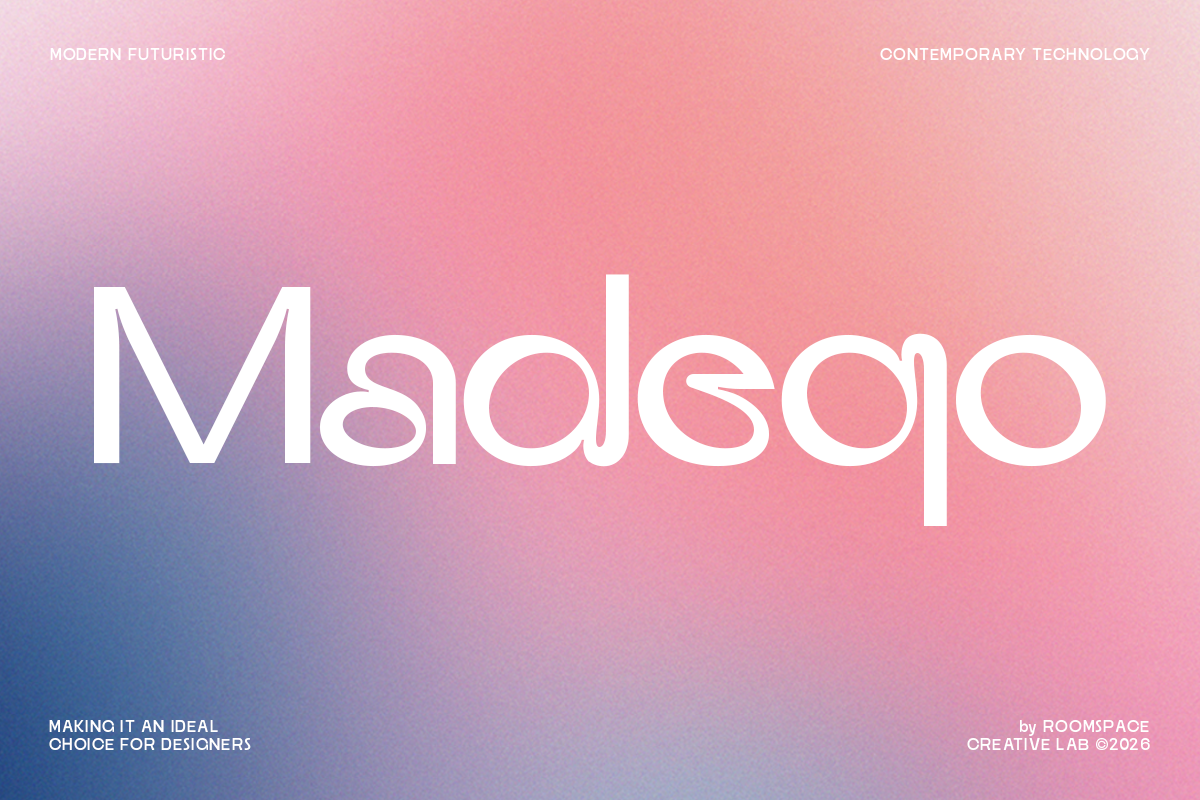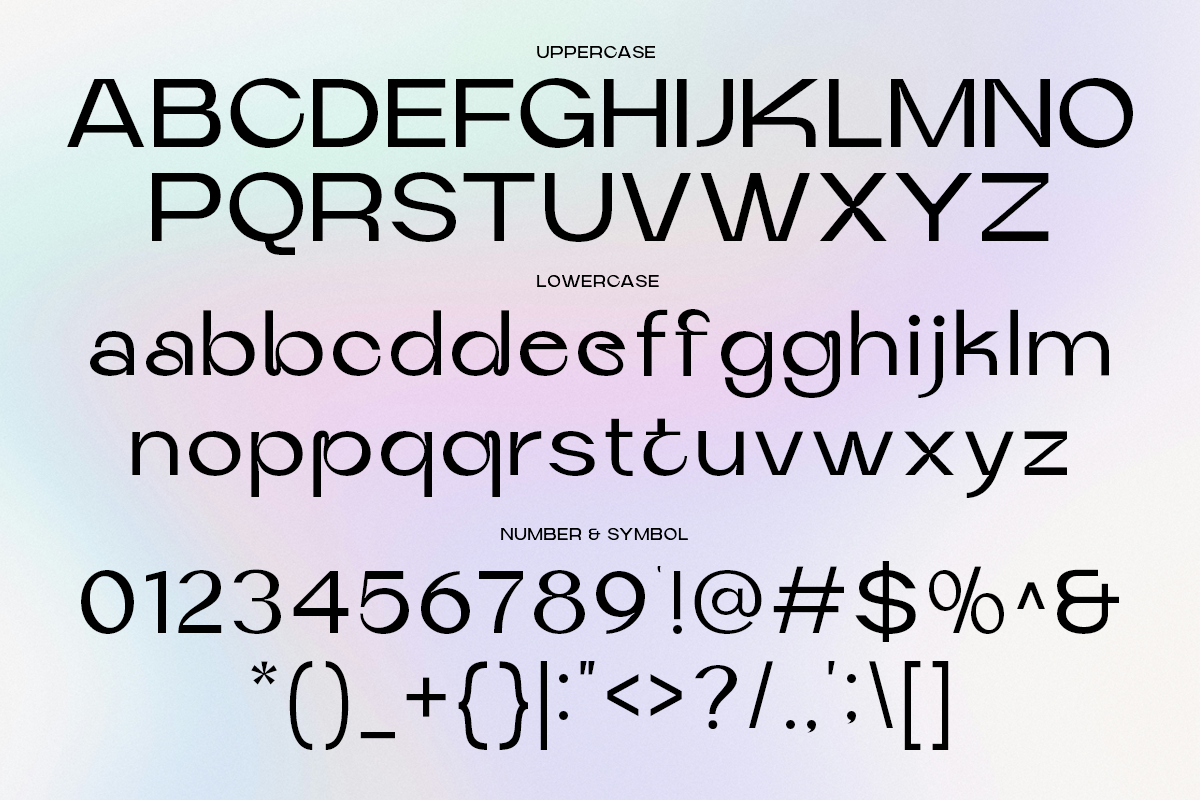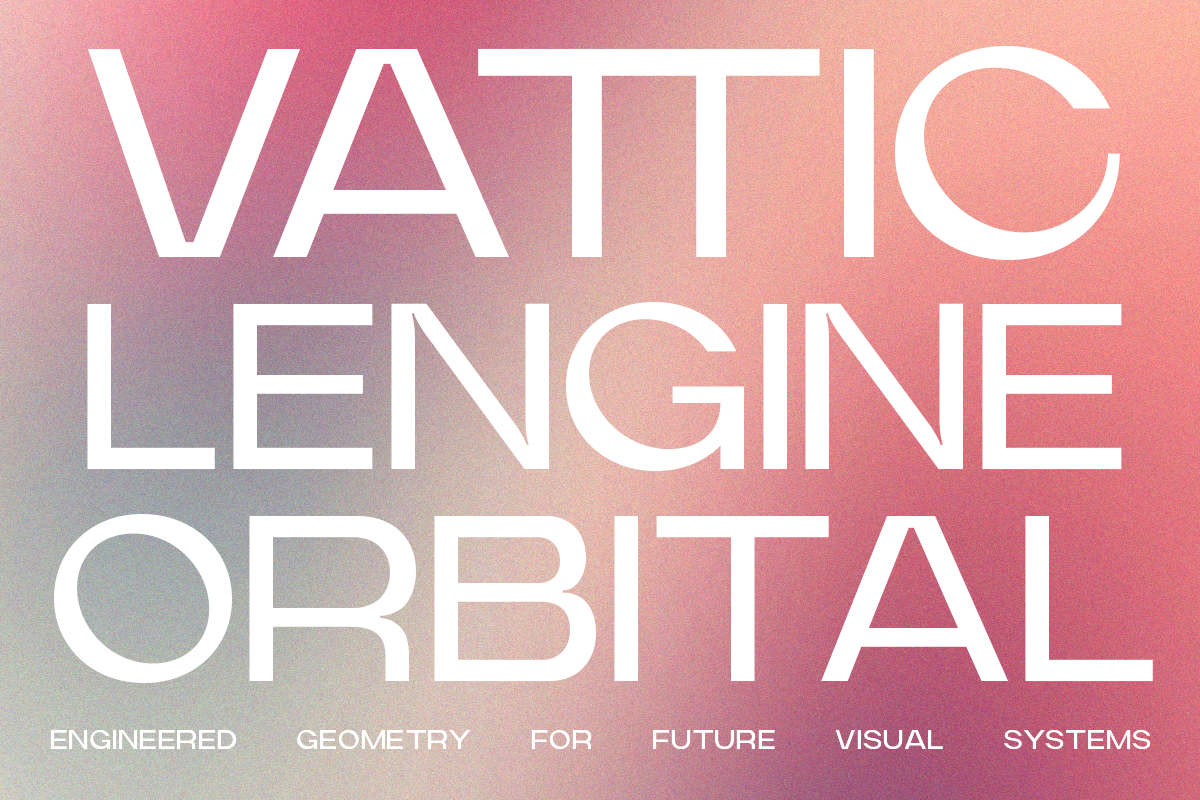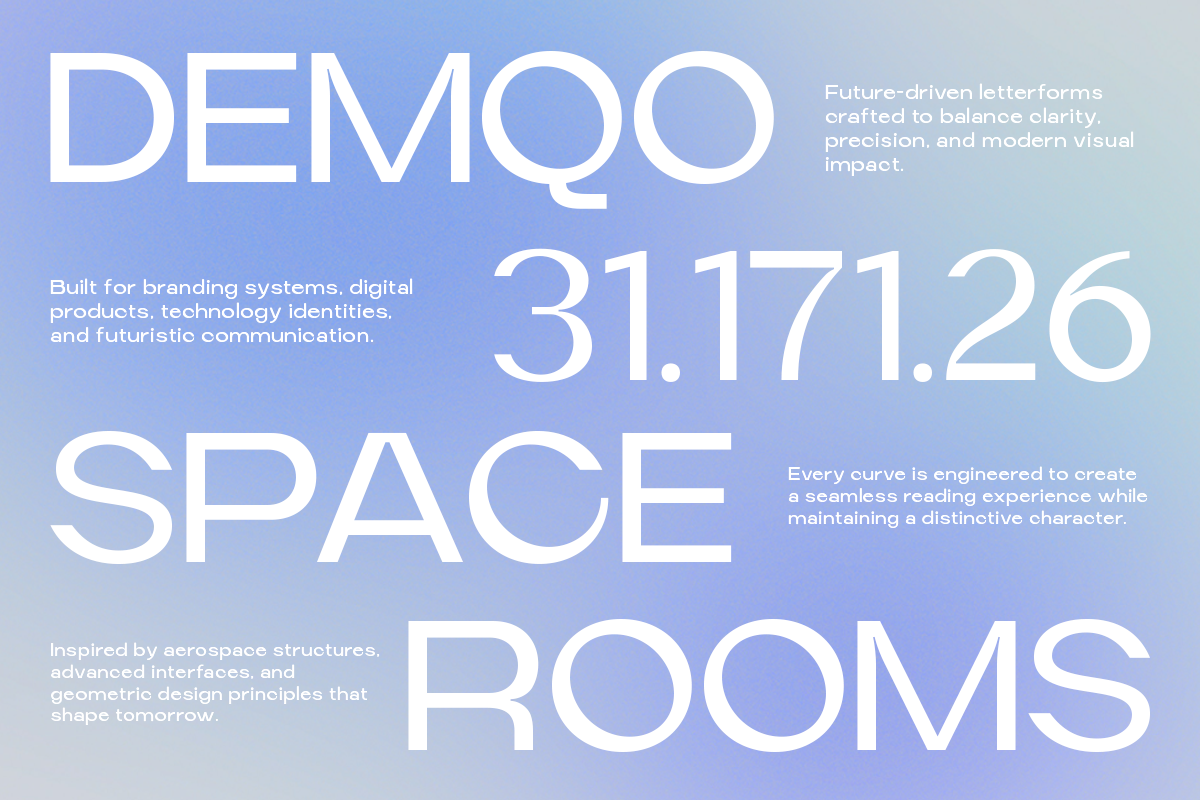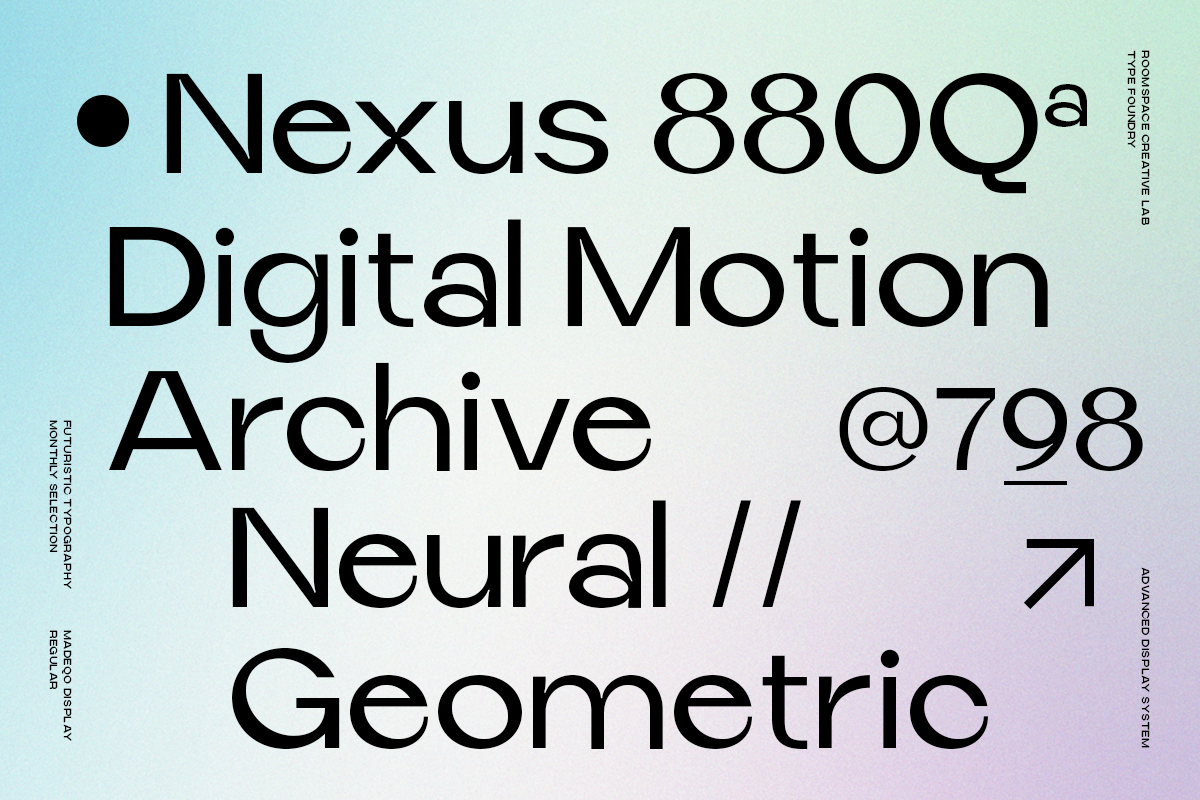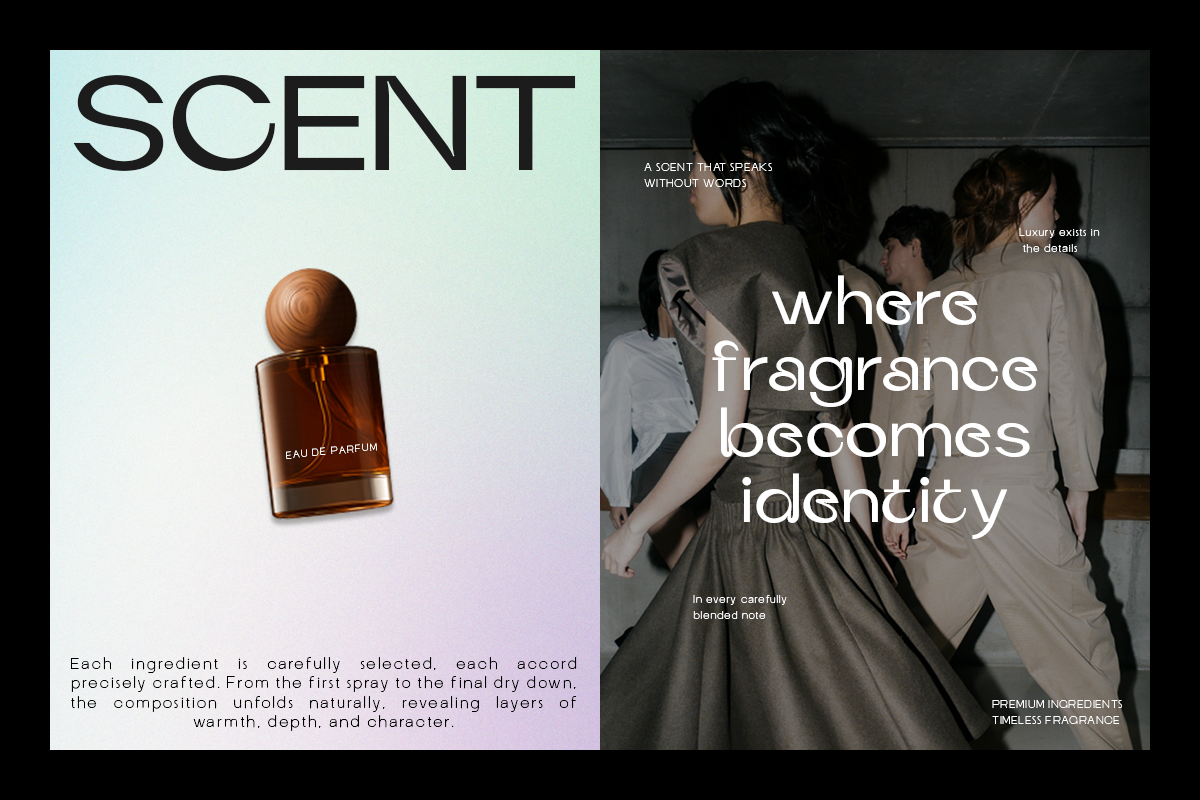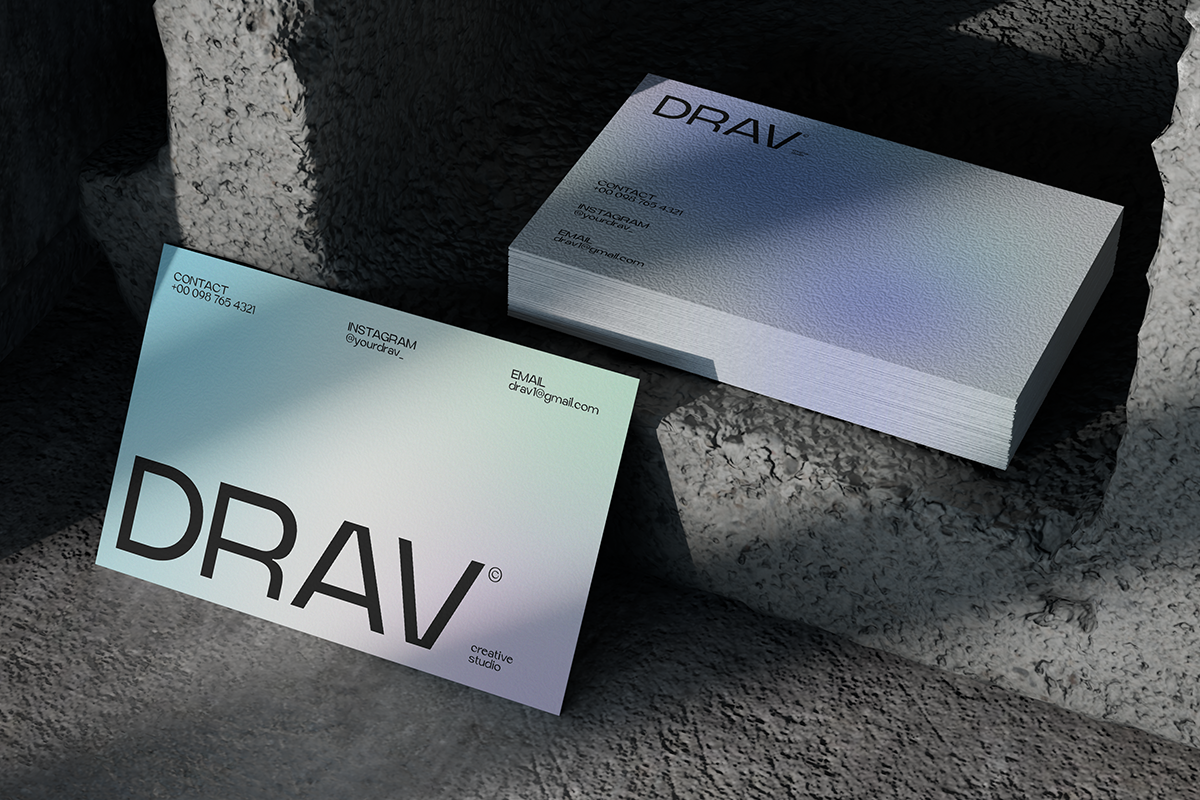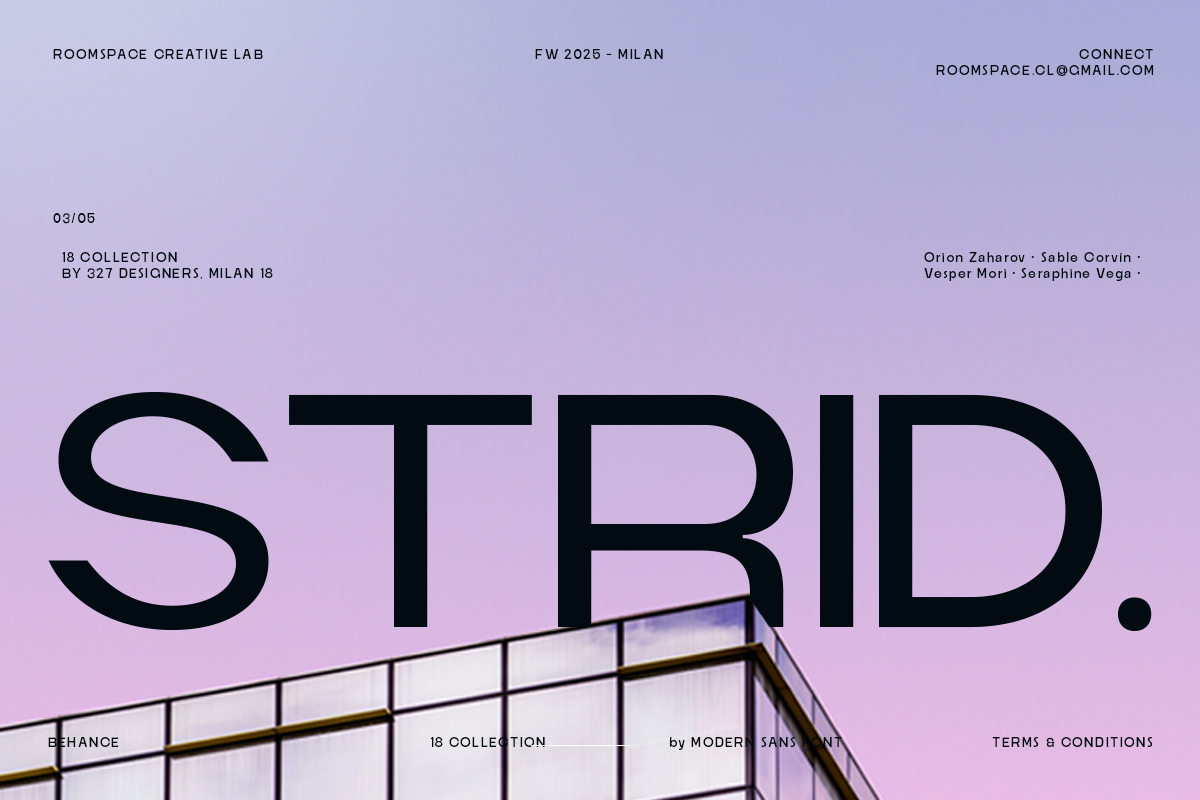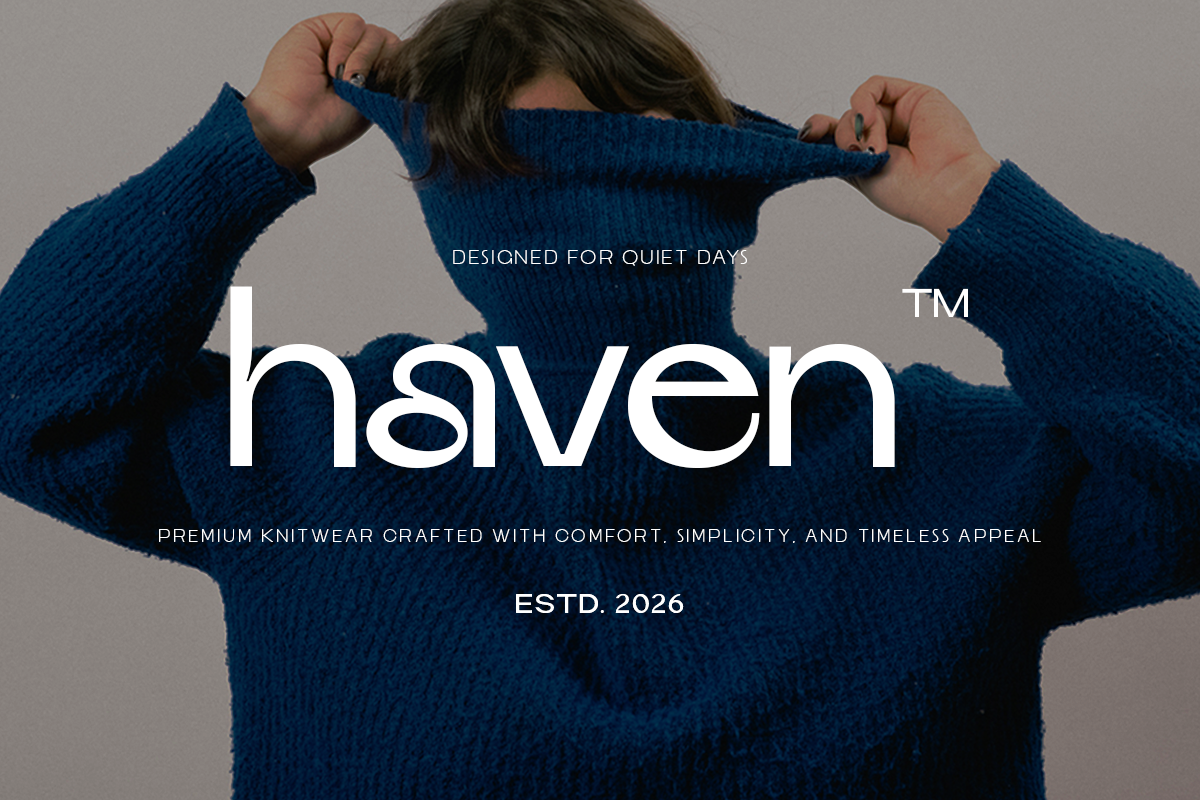
Madeqo is a modern futuristic display sans-serif designed to create bold visual identities with clean geometric construction and unique ligature details. Its rounded forms and contemporary proportions deliver a sleek, forward-thinking aesthetic while maintaining excellent readability. Perfect for technology brands, digital interfaces, logo systems, startup identities, editorial layouts, product packaging, posters, and social media graphics, Madeqo combines innovation with minimalist sophistication to help your designs stand out. Features Regular Style Modern Futuristic Display Sans Unique Ligatures Uppercase & Lowercase Numbers & Punctuation Multilingual Support OTF, TTF & WOFF Professional Kerning Easy Installation